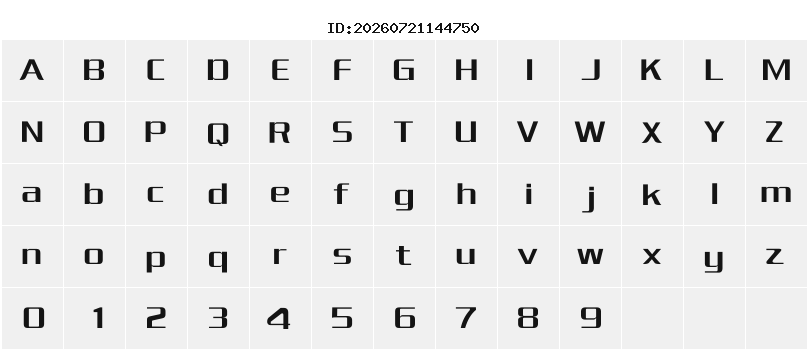
方正粗倩繁体 Preview
• Font Name: 方正粗倩繁体
• Font ID: Founder:方正粗倩繁体 Regular
• Full Font Name: 方正粗倩繁体
About 方正粗倩繁体.ttf
方正粗倩繁体.ttf is a modern, elegant sans-serif font designed for ultimate readability and visual harmony. Perfect for branding, headlines, web design, and print materials.